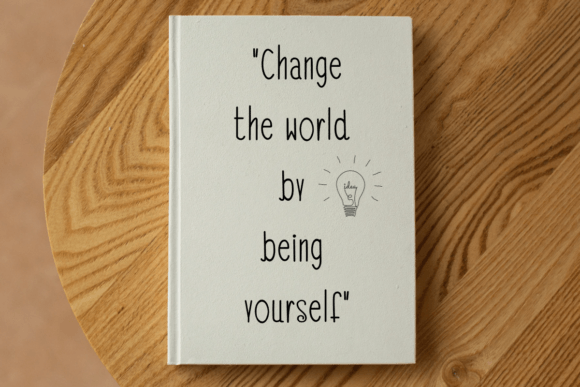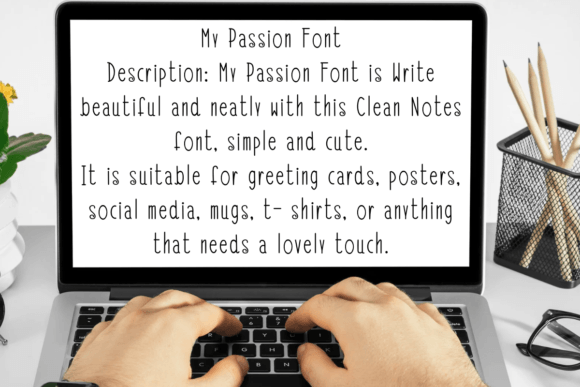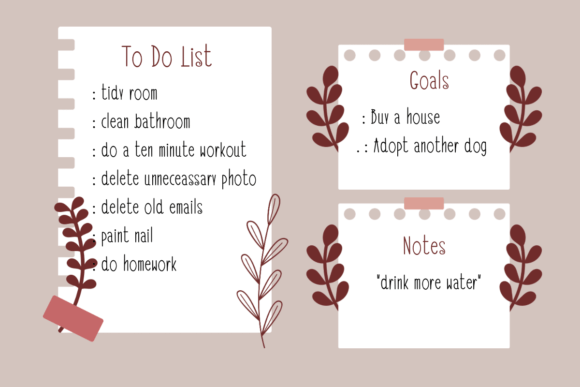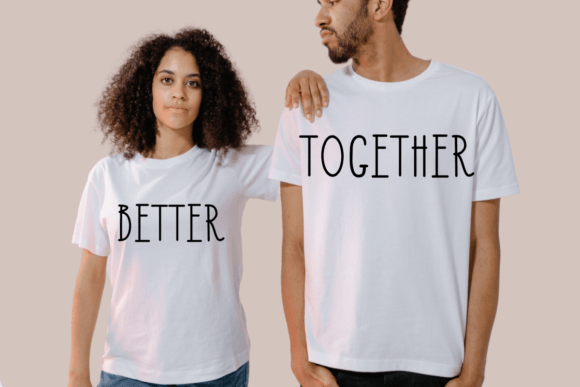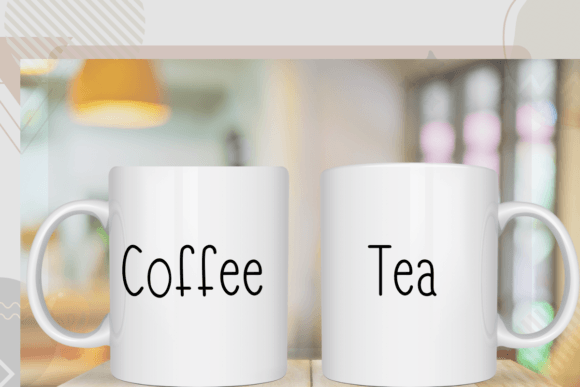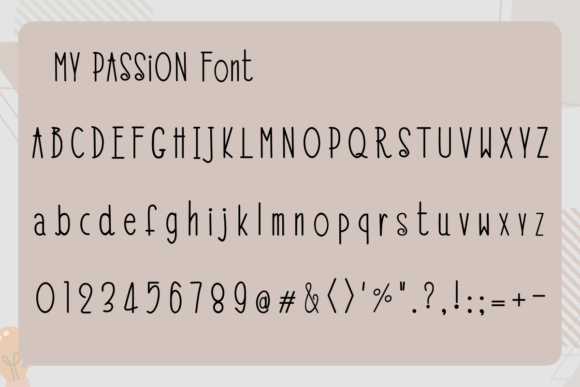
Introduction to My Passion Font
Have you ever found yourself stuck in a creative rut, unable to find the perfect font to bring your vision to life? I know I have. It was on one such day, while brainstorming ideas for a friend’s birthday card, that I stumbled upon “My Passion Font”. This delightful font, with its clean lines and elegant simplicity, instantly captured my attention and sparked a wave of inspiration. As I delved deeper into the world of “My Passion Font”, I discovered a treasure trove of design possibilities waiting to be unleashed.
As a designer, I know how valuable it is to have access to high-quality design resources that can elevate our creative projects to the next level. “My Passion Font” is precisely that – a free download that offers a transparent background, making it perfect for eye-catching social media graphics, stylish mugs, and trendy t-shirts. Whether you’re a seasoned pro or a budding designer, this font is sure to become your go-to design resource.
Key Features of My Passion Font
- High-quality font design suitable for creative projects and design resources, available for free download.
- Comes with transparent background, making it easy to use in various design applications.
- Perfect for personal and commercial use, ideal for designers and artists working on creative projects.
- Features a clean and elegant design, making it suitable for a wide range of creative projects and design resources.
- Available in a standard font size (2048 x 2048 pixels) and high-resolution (4096 x 4096 pixels) for crisp and clear display.
- Unique and exclusive design, not found in common font libraries, making it a valuable addition to any design resource collection.
Honest Review: My Passion Font
As a designer, I’m always on the lookout for high-quality design resources to elevate my creative projects. Recently, I stumbled upon My Passion Font, a free download that caught my eye. In this review, I’ll share my honest thoughts on what works well and what could be improved.
- Unique aesthetic: My Passion Font has a distinct, hand-drawn feel that adds a touch of personality to any design.
- High-quality glyphs: The font includes a wide range of glyphs, making it suitable for both personal and professional projects.
- Transparent background: This feature is a must-have for designers who want to create clean and minimalist designs.
- Limited font weights: My Passion Font currently only offers a few font weights, which may not be ideal for designs that require more flexibility.
- No bold or italic versions: If you’re looking for a font with bold or italic versions, you may be disappointed.
Overall, I think My Passion Font is a great addition to any designer’s toolkit. While it may have some limitations, its unique aesthetic and high-quality glyphs make it a valuable design resource. If you’re looking for a free download to spice up your creative project, give it a try!
Tips for Getting the Most Out of My Passion Font
Use My Passion Font in combination with other design elements to create a unique and eye-catching design. Experiment with different font sizes and styles to find the perfect balance for your project.
My Passion Font is perfect for creative projects such as logos, brochures, and social media graphics. It’s also great for personal projects like planners and journals.
Is My Passion Font suitable for high-resolution designs?
Yes, My Passion Font is designed to be high-quality and suitable for high-resolution designs. The font has been optimized for use in various design contexts, including print, web, and digital media. You can use it for creating stunning designs that require crisp and clear typography.